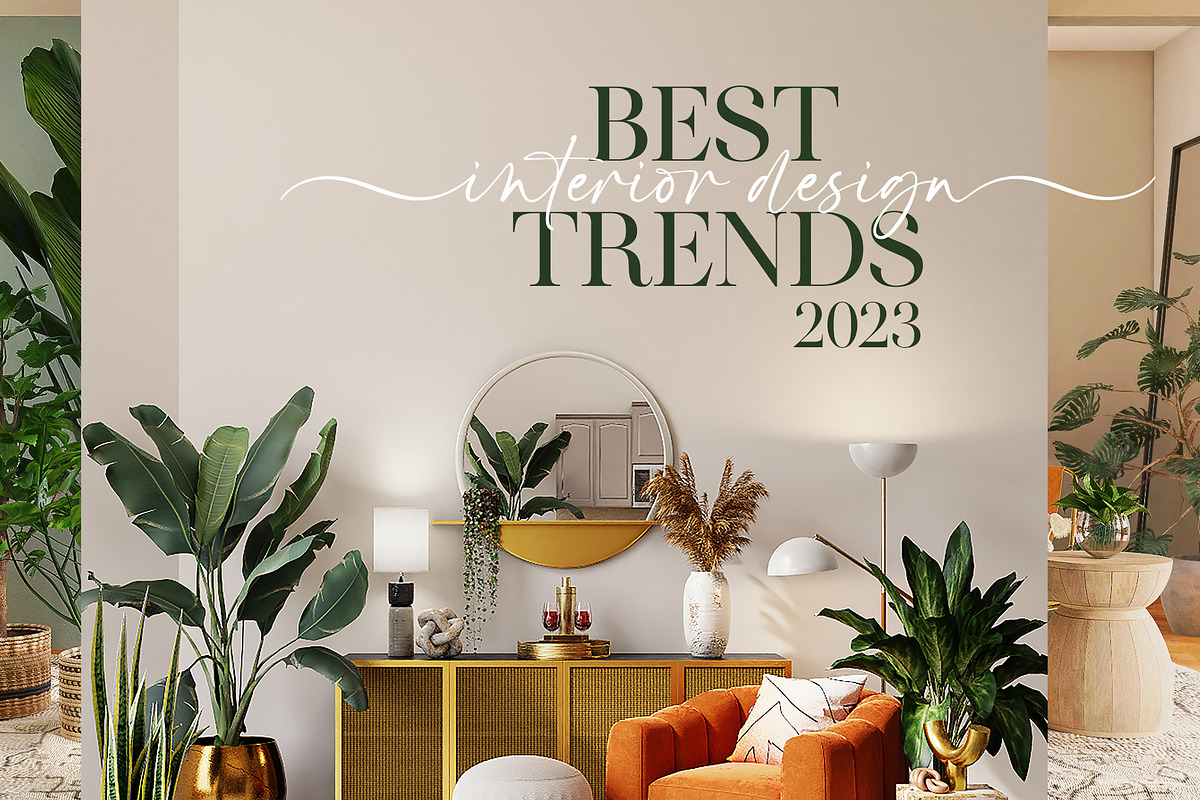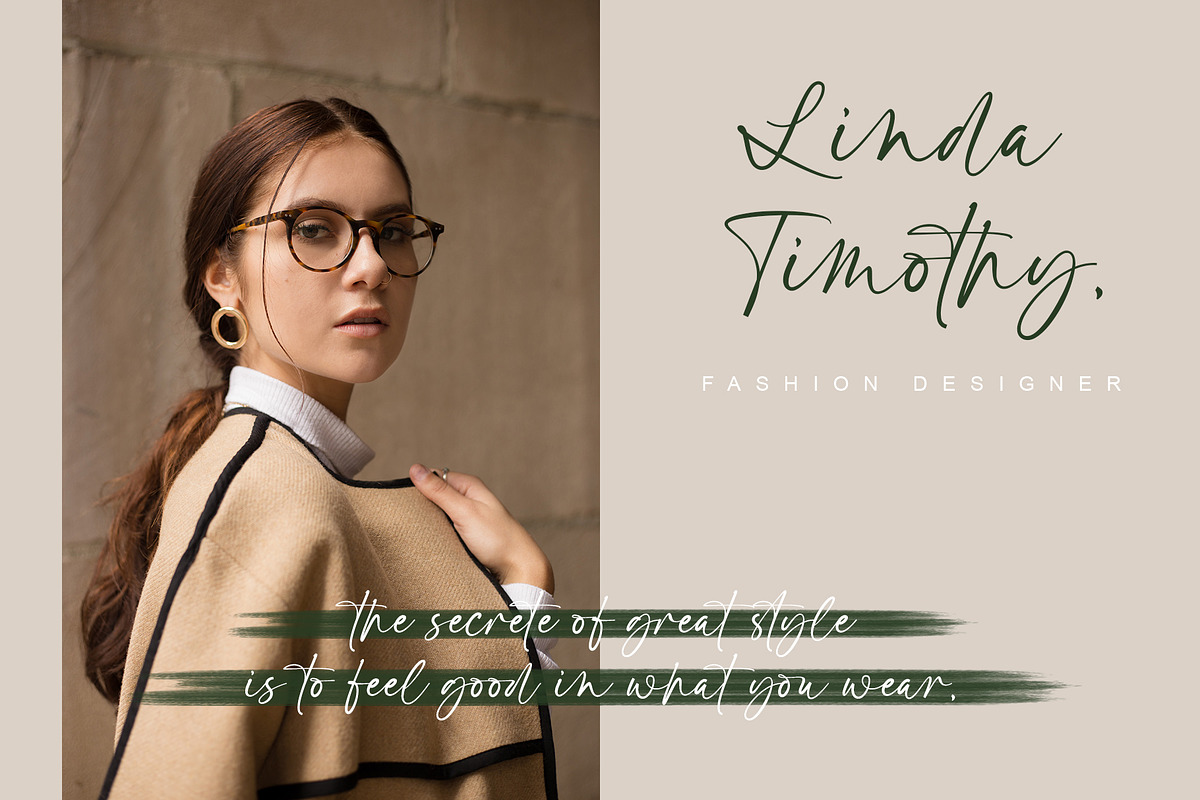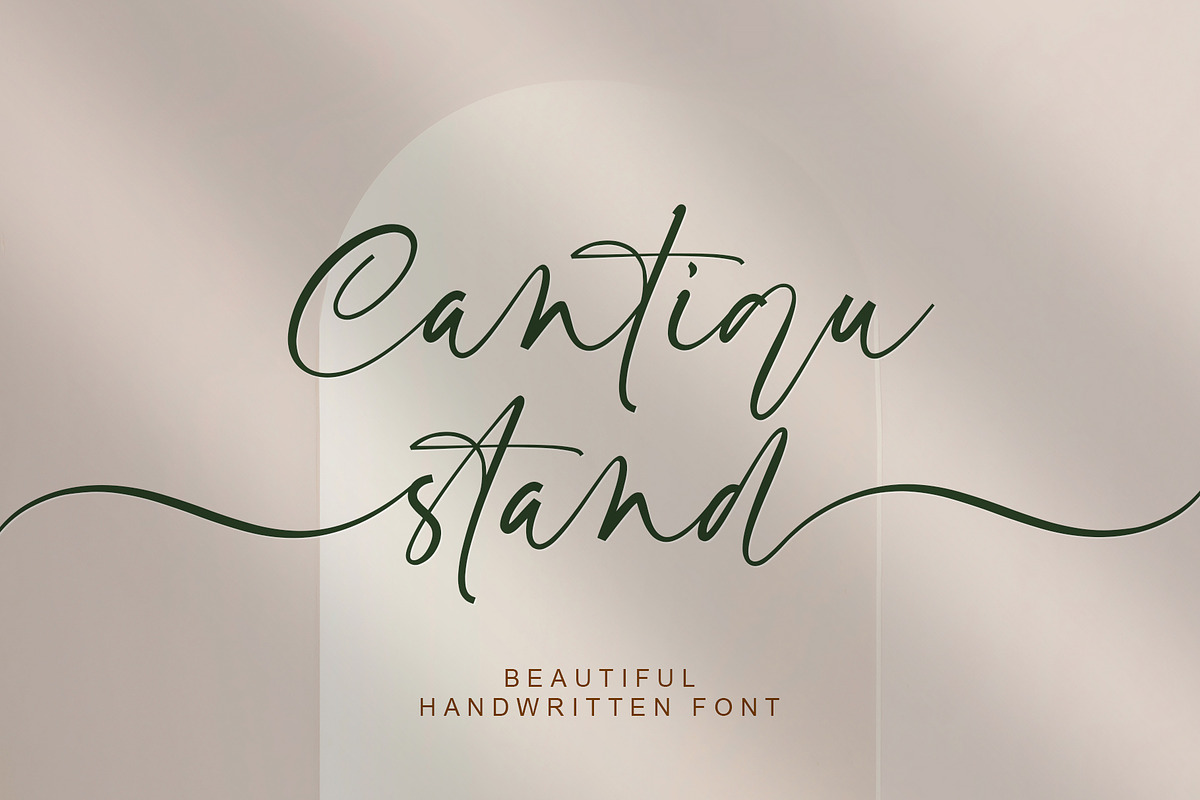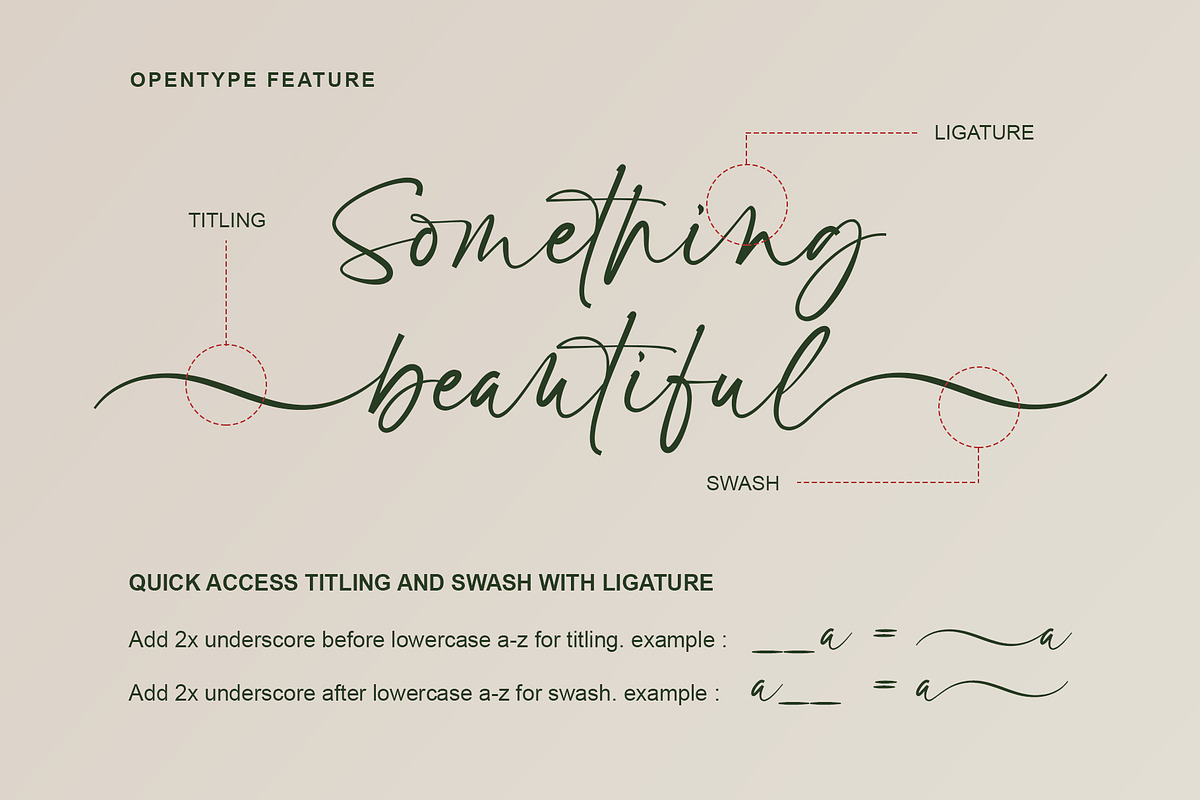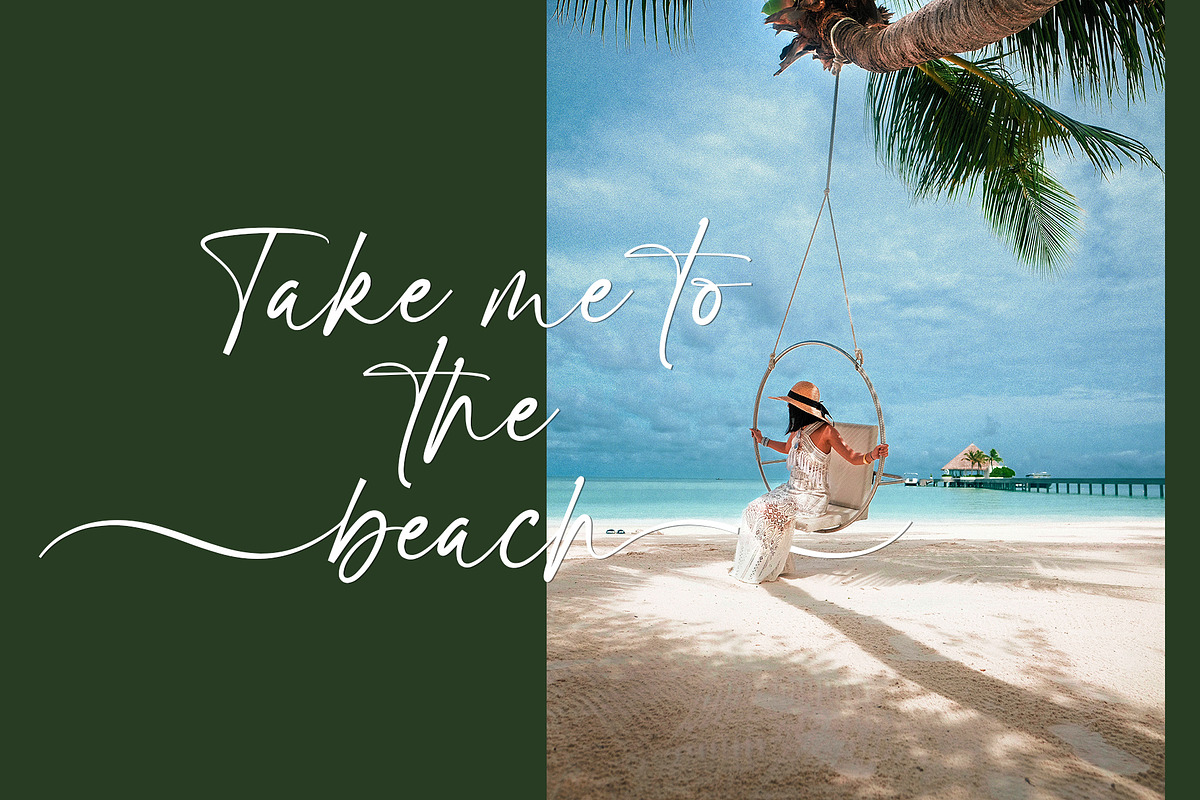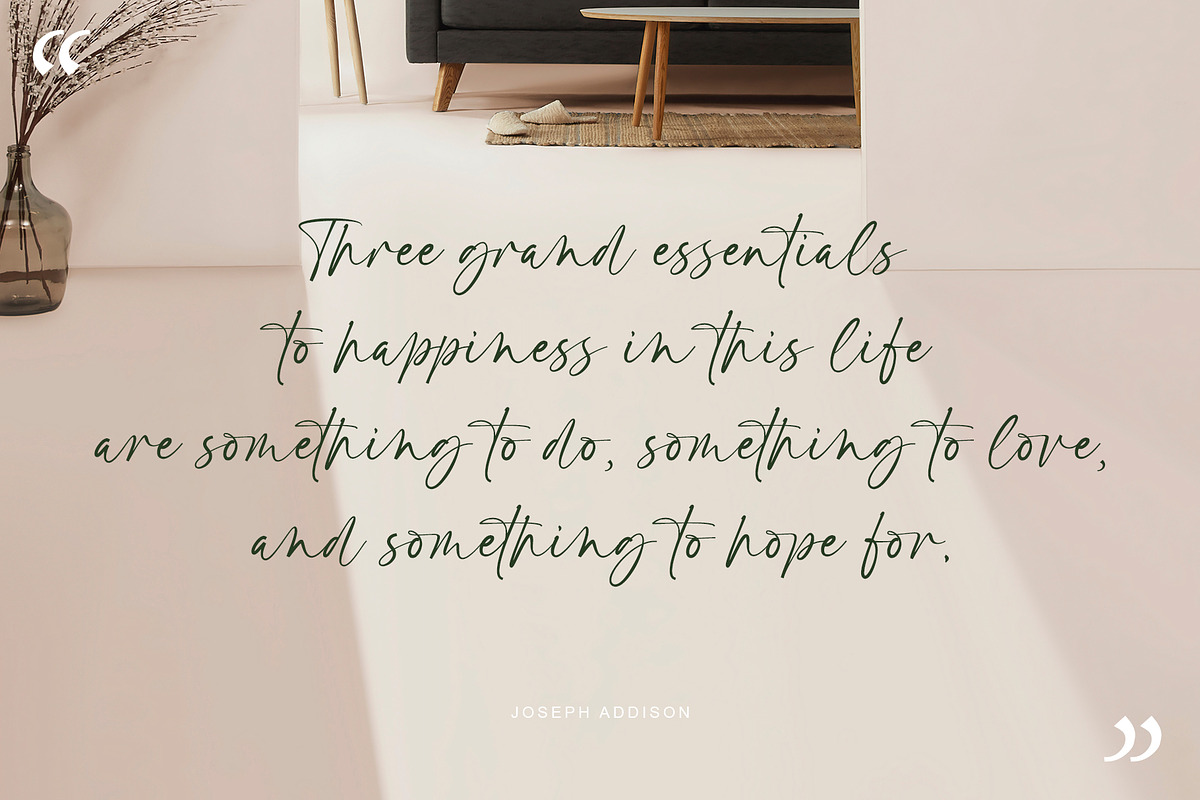
Cantiqu Stand | Handwritten Font
Cantiqu stand is a beautiful handwritten script font. Cantiqu stand Font is perfect for many different project such as logos & branding, invitation, stationery, wedding designs, social media posts, advertisements, product packaging, product designs, label, photography, watermark, special events or anything.
- Titling
Quick access
- Titling: Add 2x underscore before lowercase a-z. Ex: __a
- Swash: Add 2x underscore after lowercase a-z. Ex: a__